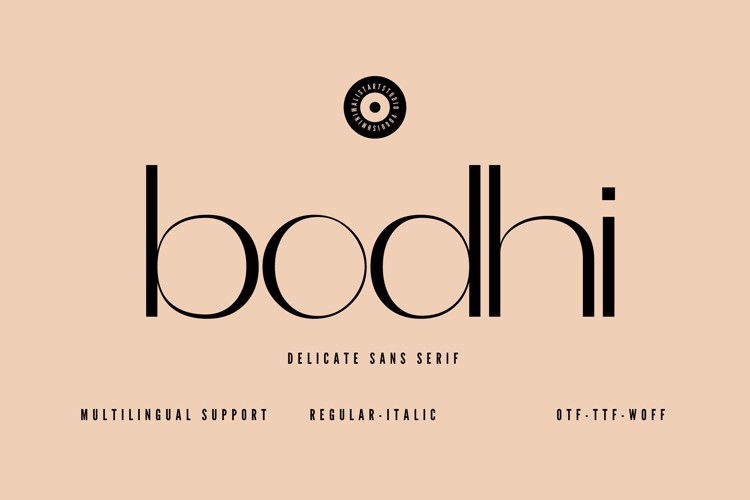
bodhi Font
π¨ Font Name: Bodhi by Minimalist Art Studio
π¨ Font Description: bodhi is a delicate sans serif with multilingual support and minimalist styleβideal for wellness branding, editorial design, and lifestyle packaging.
β Complete Latin set + multilingual diacritics
β Alternates, stylistic sets & ligatures
β Numbers, small caps, and extended punctuation
β Bonus italics and family styles